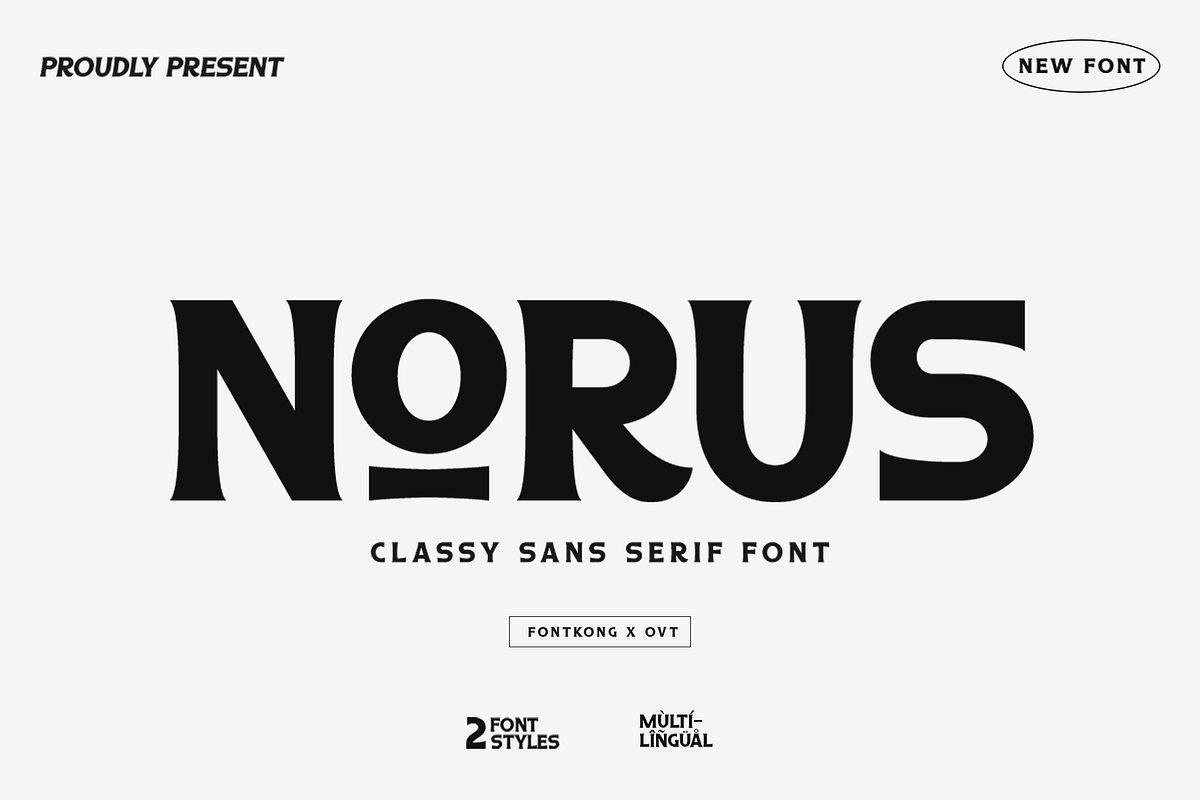
Norus - Classy Sans Serif Font Free Download
Norus Classy Sans Serif Font Free Download
Norus Classy Sans Serif Font Free Download is a modern and elegant typeface designed to elevate your designs with sophistication and style. With its clean lines, balanced proportions, and contemporary charm, Norus is perfect for branding, editorial layouts, packaging, logos, and any project that demands a professional and refined appearance.
Whether you’re building a high-end brand identity, creating a stylish website, or designing polished marketing materials, Norus brings clarity, elegance, and modernity to your typography. It’s the ideal choice for designers seeking a clean, sophisticated sans-serif look.